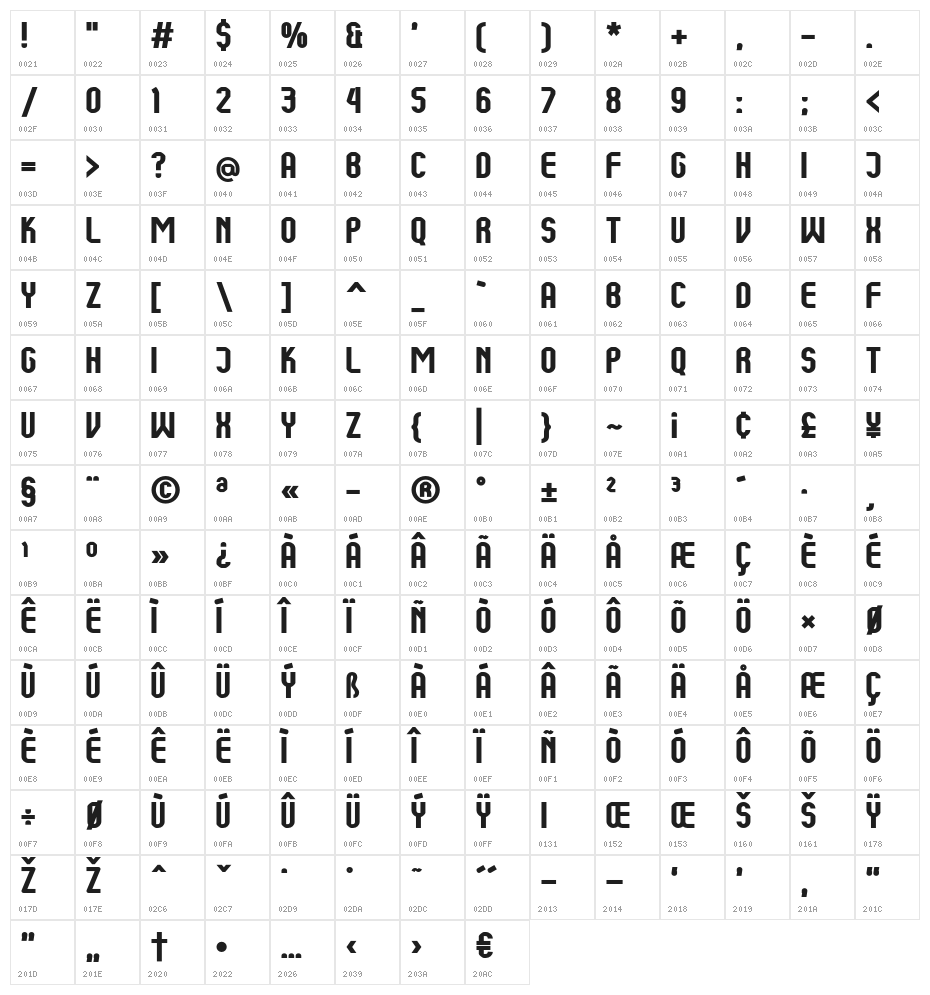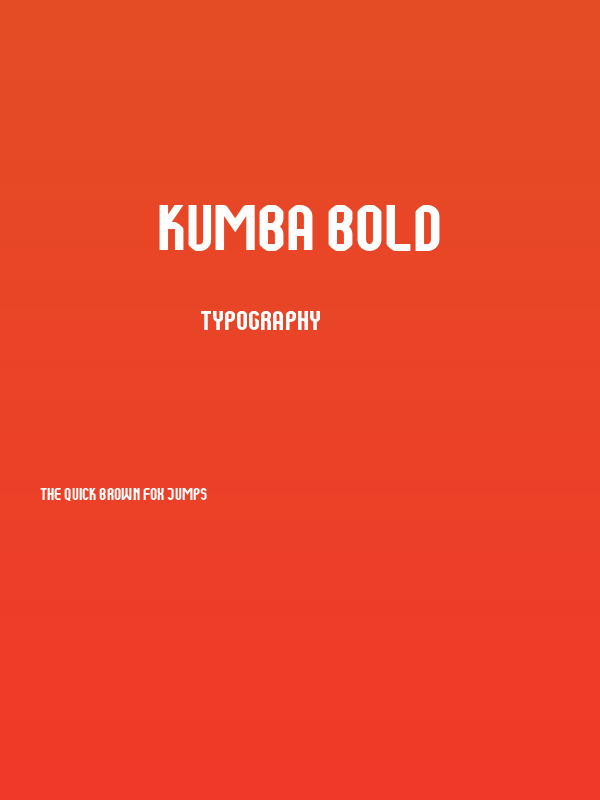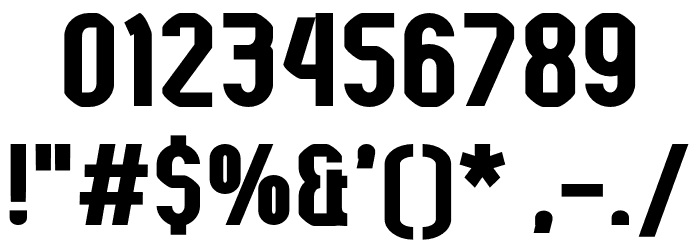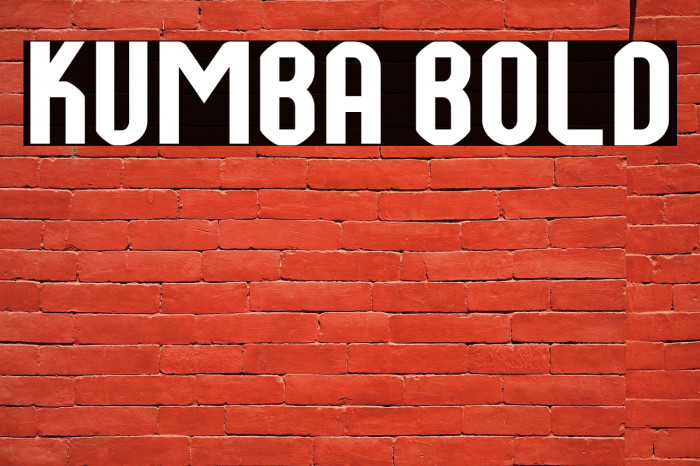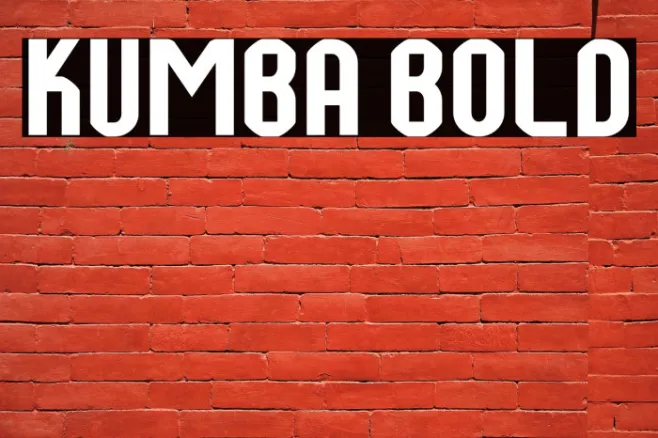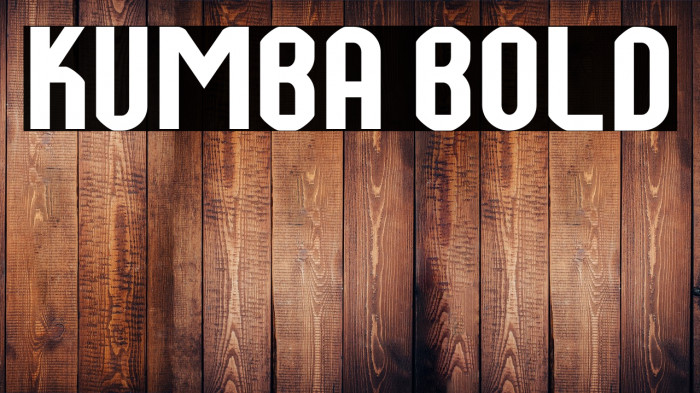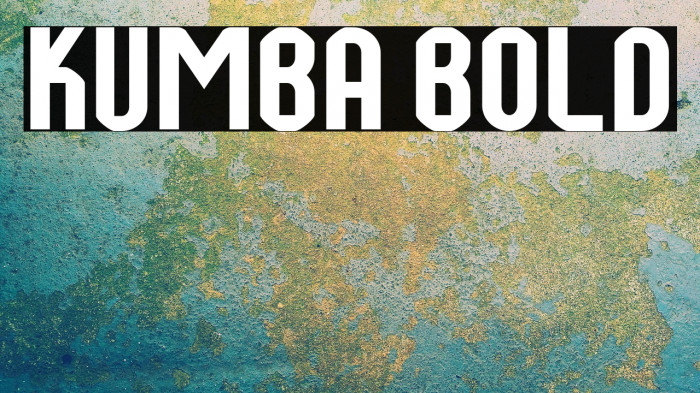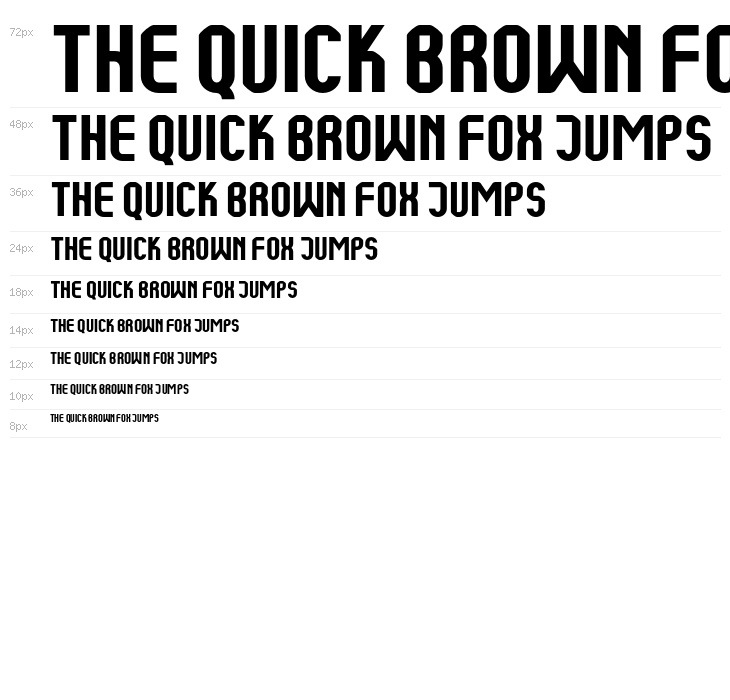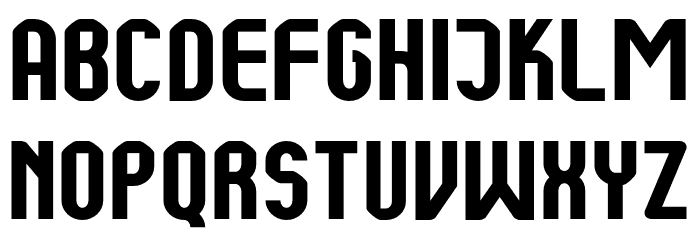
Kumba Bold Font
Kumba Bold Description
This font features a bold and geometric style with strong, angular lines and a modern aesthetic. The characters are uniformly thick, creating a sense of stability and strength. The uppercase letters are particularly striking, with a blocky appearance that commands attention. The numbers and special characters maintain the same boldness, ensuring consistency across all glyphs. The font's overall design is clean and impactful, making it suitable for projects that require a strong visual presence.